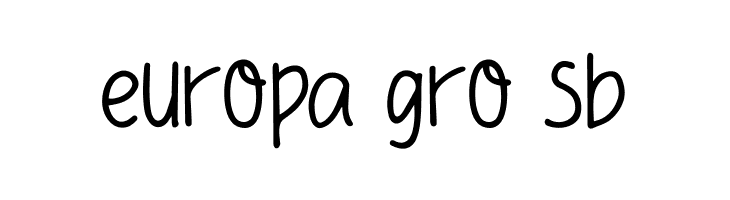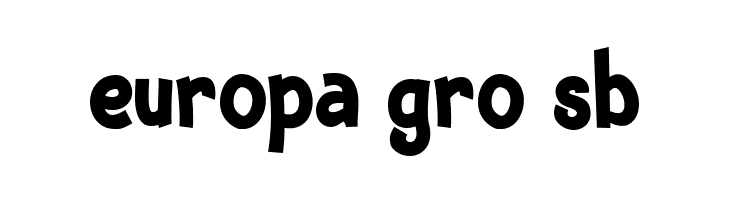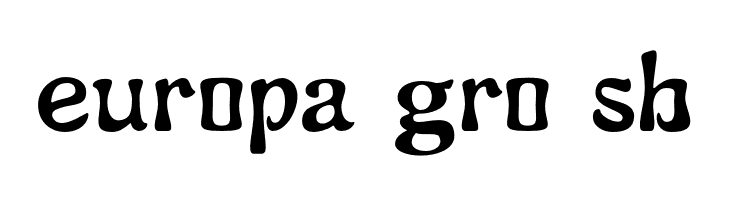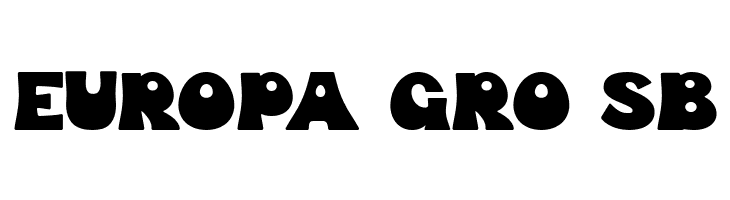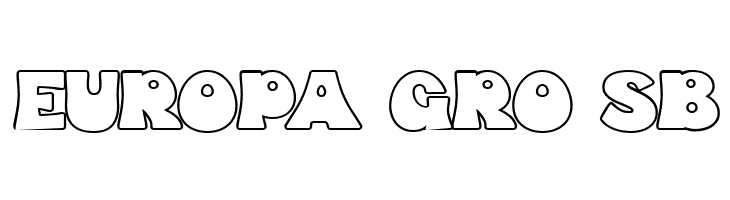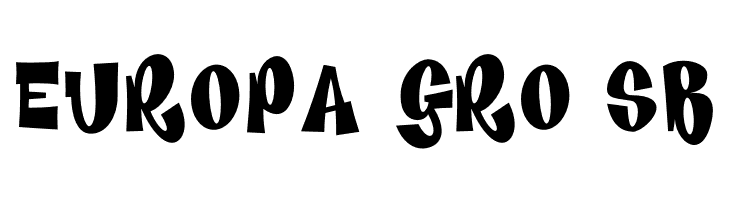
An elegant and decorative script font with ornate flourishes and high contrast.
A bold, 3D sans-serif font with a modern, geometric style.
A bold, 3D sans-serif font with a modern and impactful design.
A bold, modern font with tall, narrow characters and consistent stroke width.
A bold, hand-drawn font with a rough, edgy texture.
A bold, geometric font with angular shapes and a modern, cohesive design.
A bold, decorative font with stars and stripes, evoking a patriotic theme.
A playful, handwritten font with a casual and approachable style.
A bold, textured font with rugged, irregular edges.
A bold, playful font with unique geometric shapes and a modern artistic style.
A playful, bold font with irregular strokes and a lively, energetic appearance.
A bold, decorative font with intricate geometric patterns and a vintage flair.
A playful, bold font with exaggerated curves and a whimsical style.
A bold, playful outline font with a cartoonish style.
A bold, playful font with chunky, dynamic characters.
A bold, 3D font with a strong, geometric design and impactful presence.
A bold, outlined font with a modern, industrial style.
A bold, geometric font with a dynamic striped pattern.
A bold, geometric outline font with a strong, industrial aesthetic.
A bold, blocky font with strong, uniform strokes and minimal spacing.
A bold, decorative font with whimsical swirls and dots, ideal for creative projects.
A bold, playful font with exaggerated curves and a whimsical style.
A playful, handwritten font with rounded edges and a casual, friendly style.
A bold, dynamic script font with flowing, cursive letterforms and elegant loops.
A lively and elegant script font with flowing cursive letters.
A playful, bold, and whimsical font with a hand-drawn appearance.
A playful, hand-drawn font with bold strokes and a whimsical, artistic style.